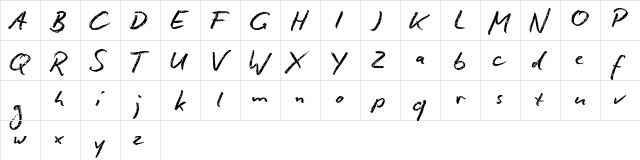
ContΠScript reduced Regular
| Foundry | Ingo Zimmermann ingoFonts Augsburg |
| Designer | Ingo Zimmermann |
Design Context for ContΠScript reduced Typeface
ContΠScript reduced flows with the natural rhythm of handwritten lettering, making it ideal for designs that call for warmth and personal expression.
Font Pairing: Combine ContΠScript reduced with a simple geometric sans for maximum contrast — the tension between flowing curves and clean structure is a classic typographic pairing.
Pro Tip: Use ContΠScript reduced for short runs of text — names, titles, or taglines. Extended body copy in script faces tires the eye quickly.